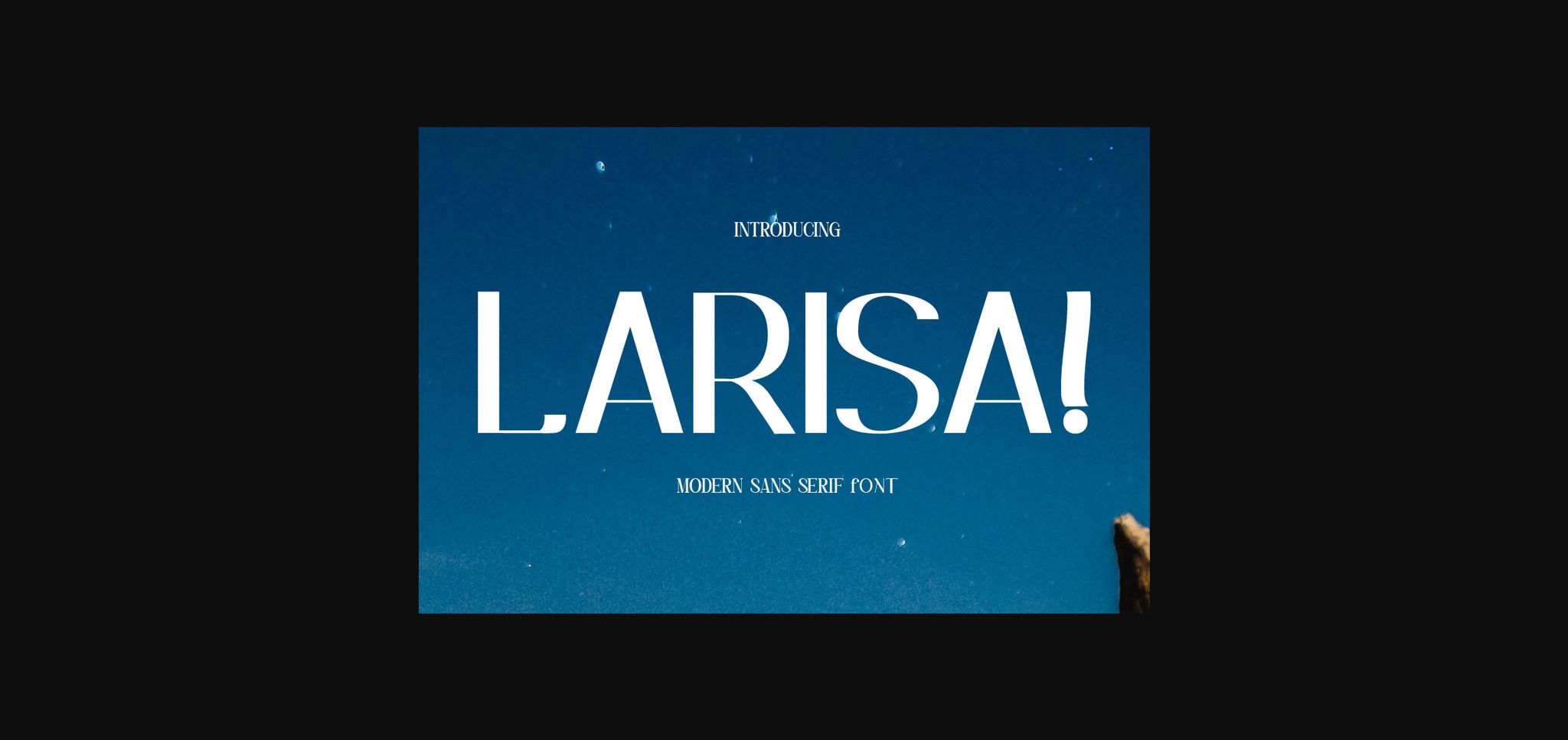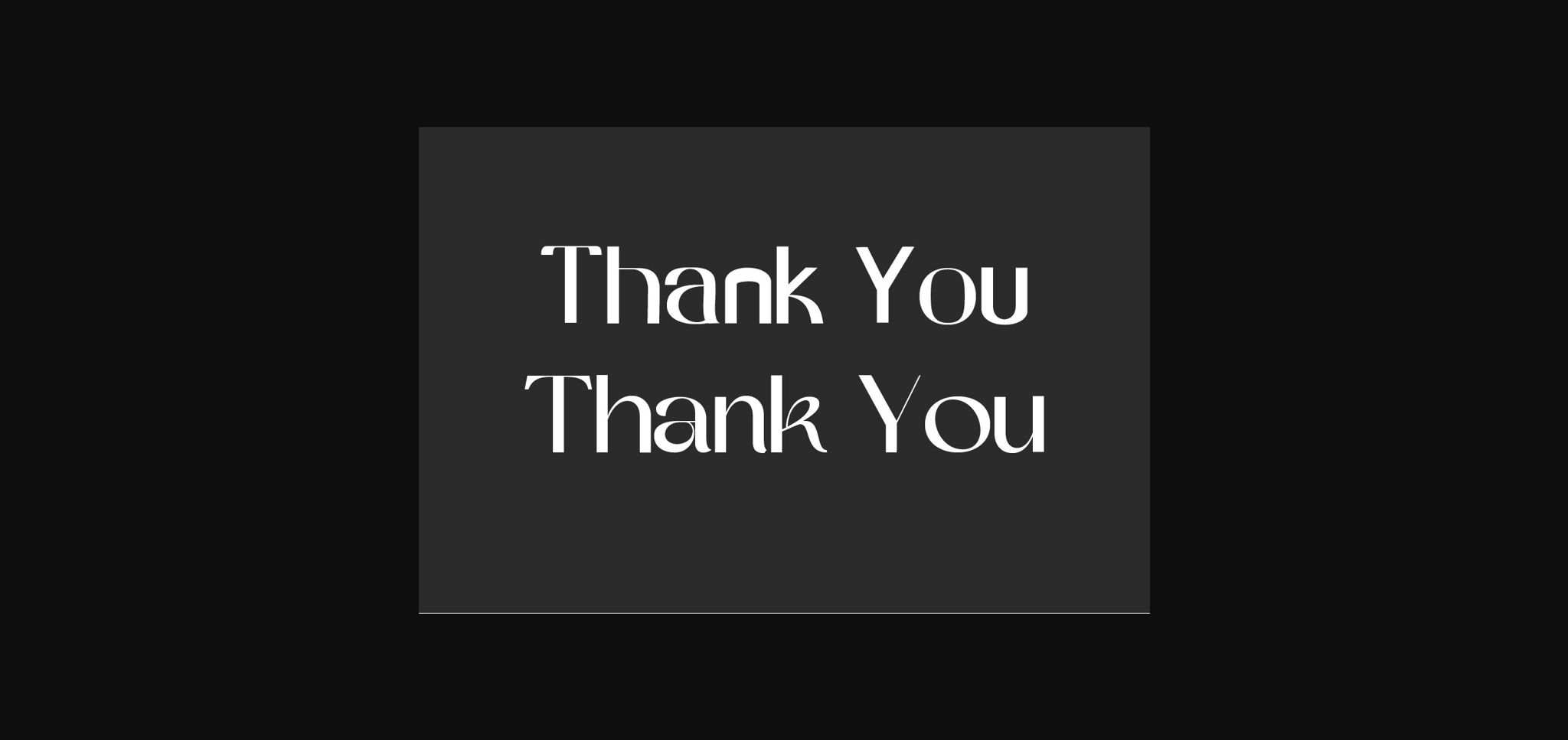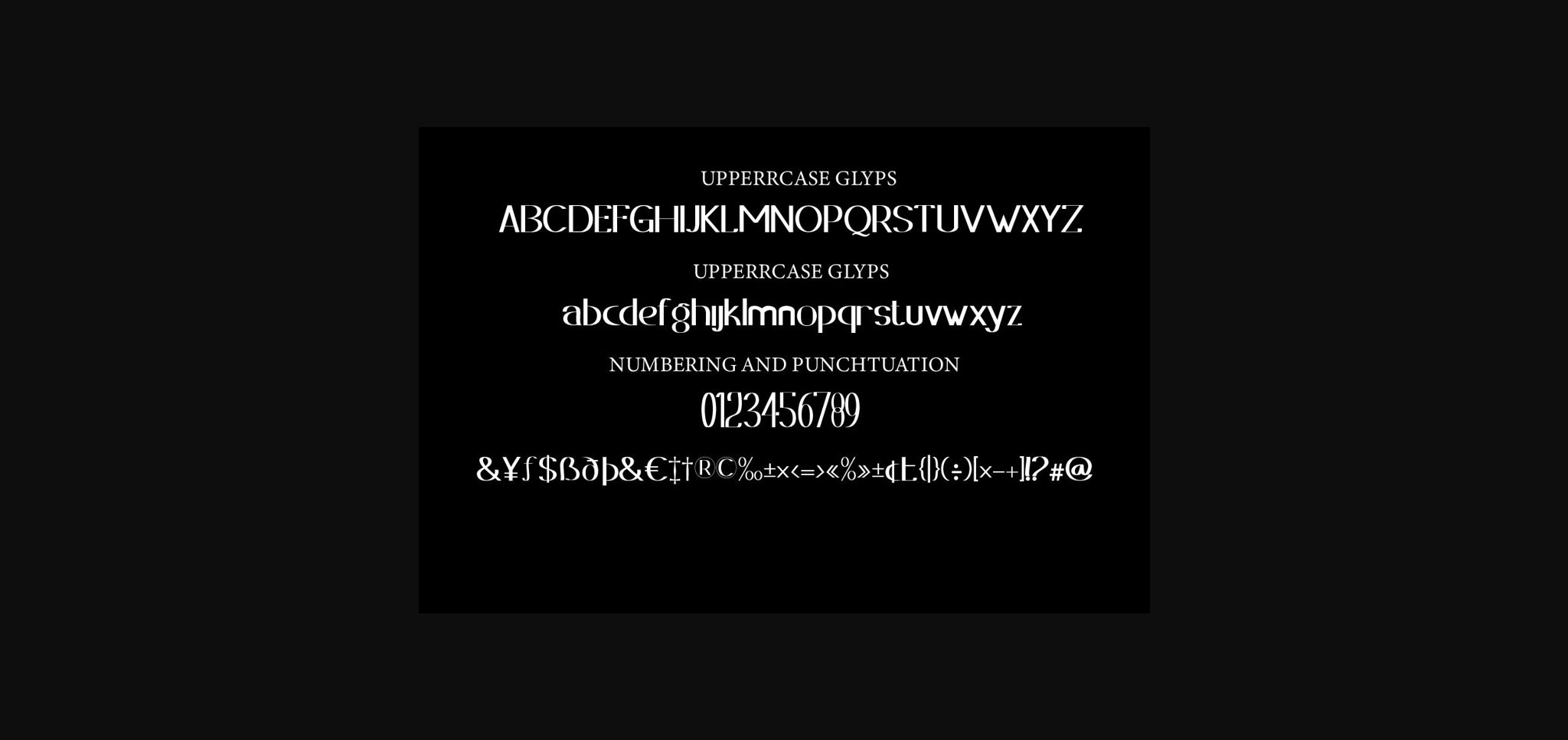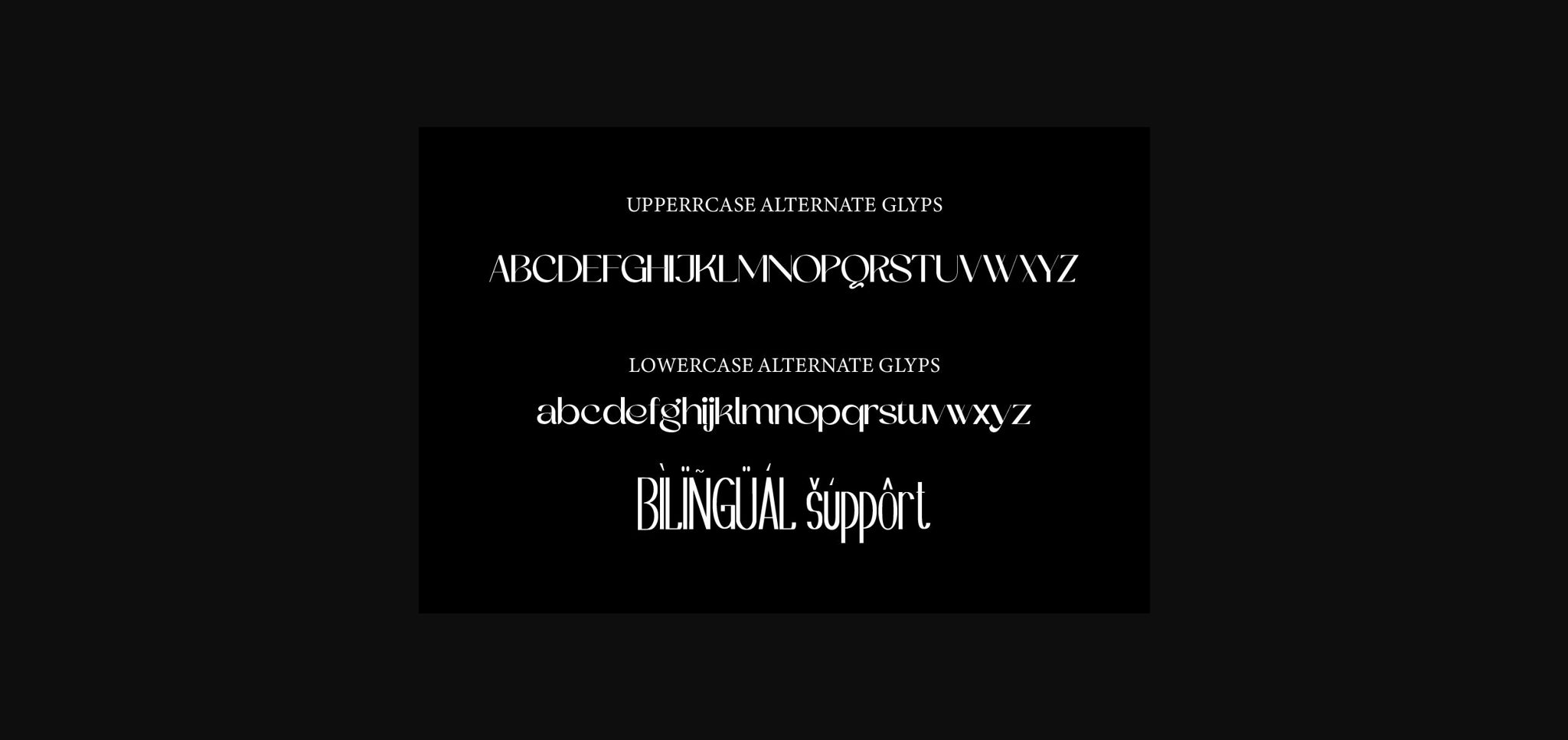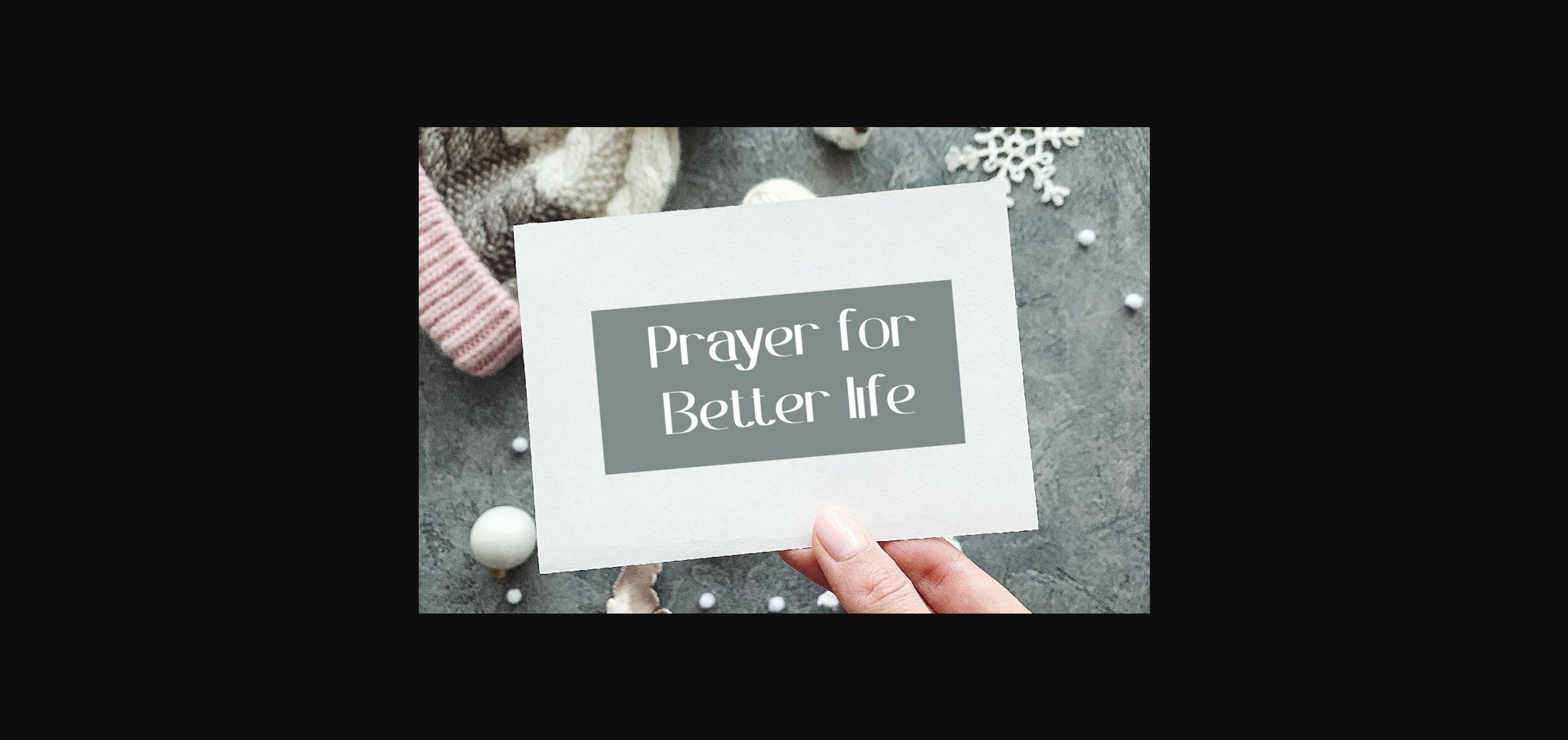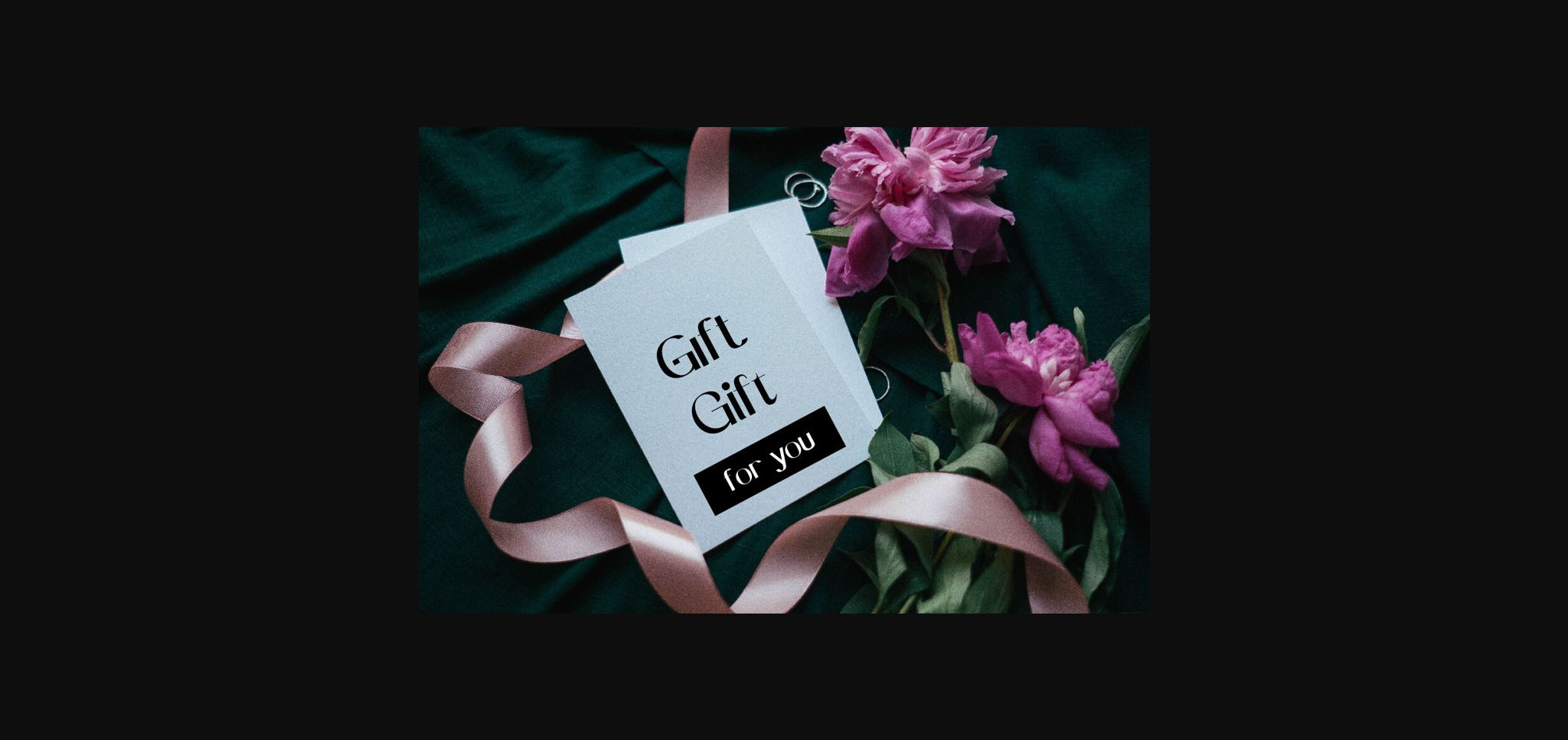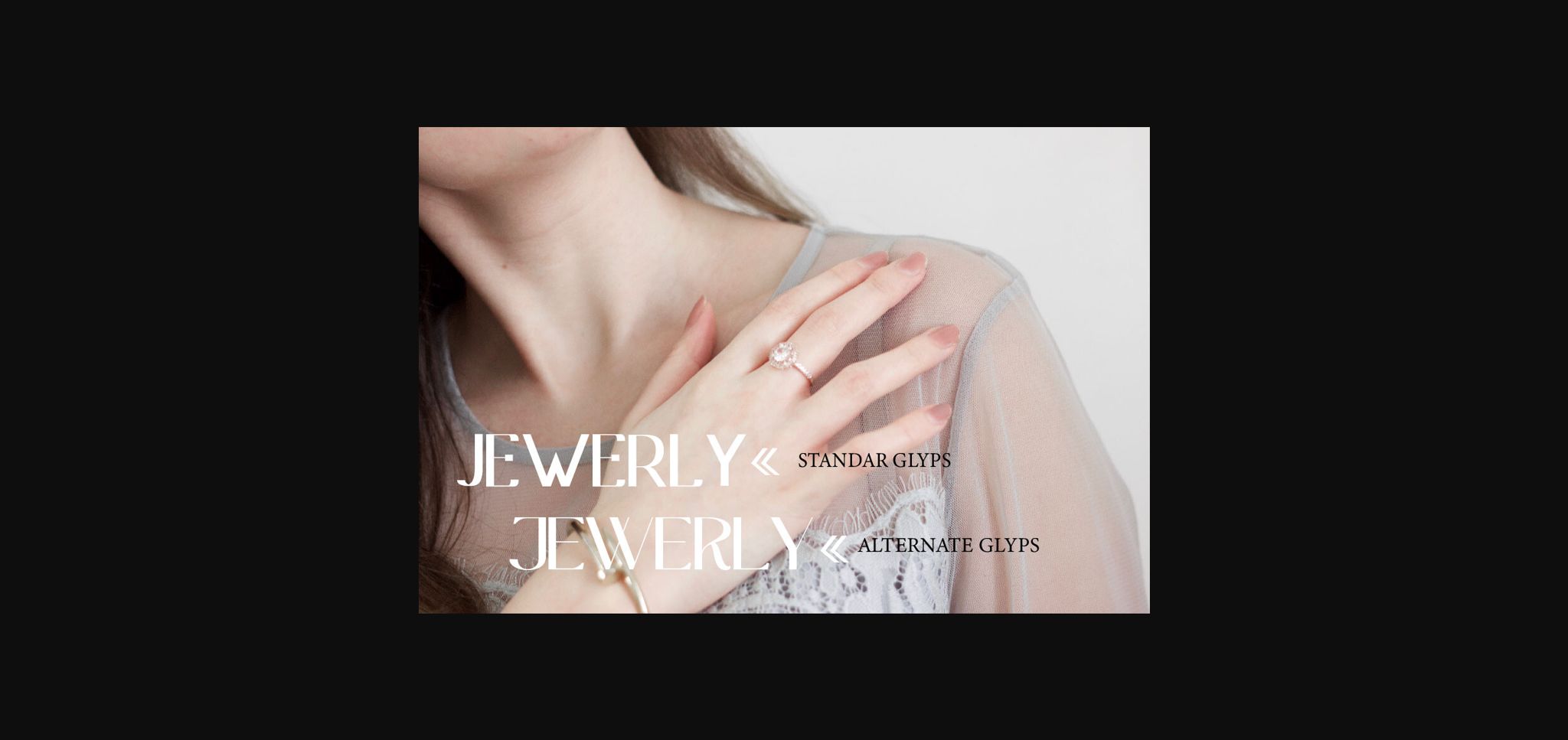
Larisa Font
About Larisa Font
Introduction Larisa font. This is a modern sans serif font with two styles, Its beautiful letters, are perfect for use in magazines, newspapers, signage, branding, packaging, and more. With Firecracker, you’ll be able to transport your audience back in time and create designs that are both nostalgic and timeless. Larisa comes with clean lines and smooth curves giving any project an extra touch of class.
Make your designs more modern and professional with Larisa font.